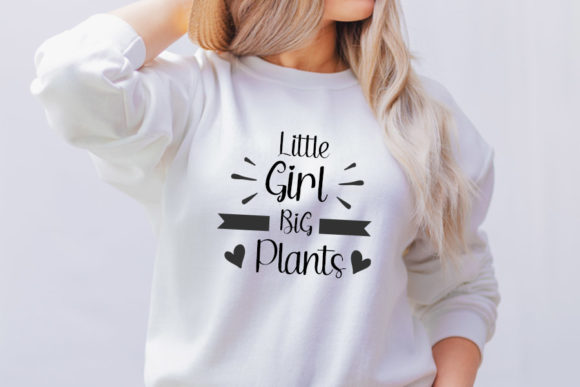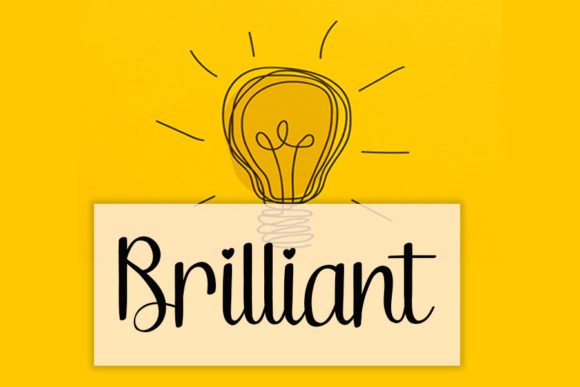
Vallentine Font
db-ku.com - Script & Handwritten -- Vallentine is a romantic and elegant handwritten font. Dainty and joyful, this font will be ideal for writing wedding invitations, cards or any other design that may need a delicate, personalized touch!